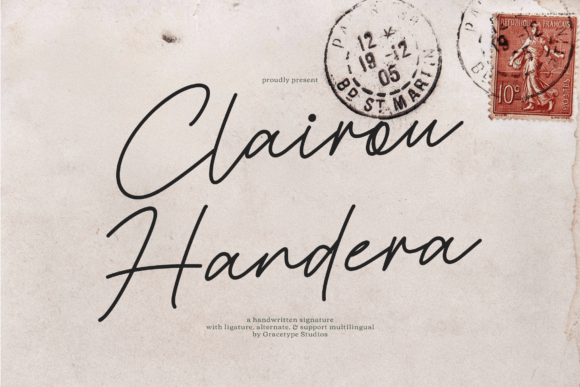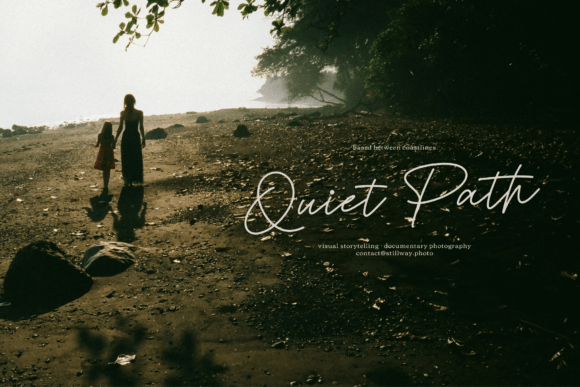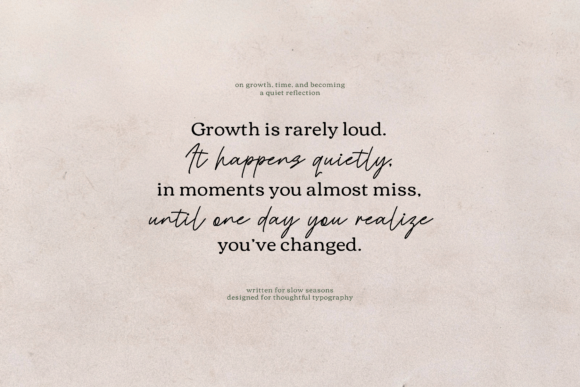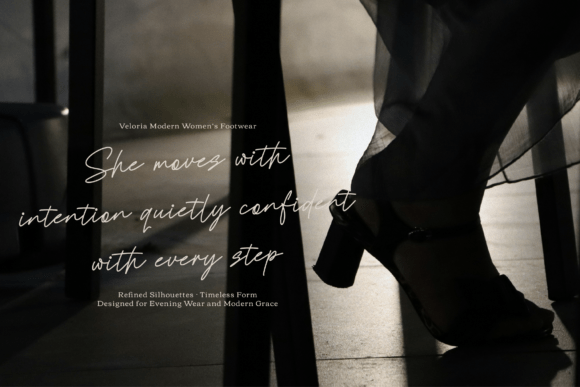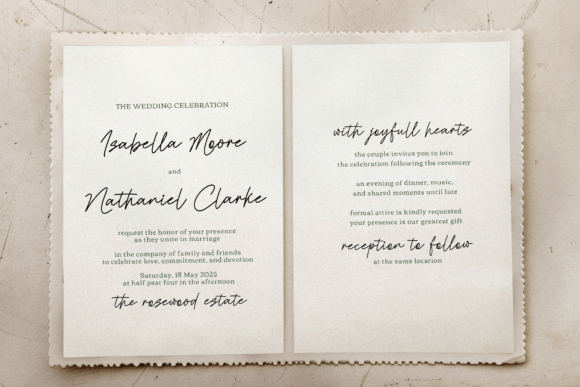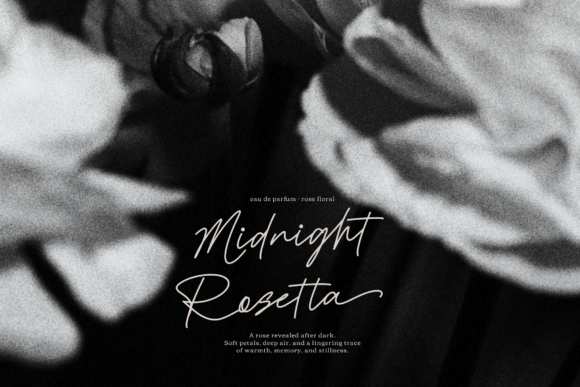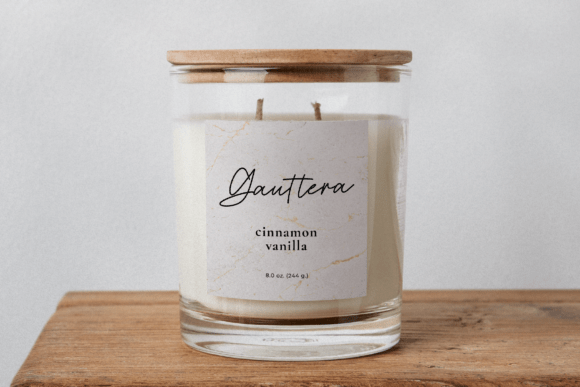
The Perfect Script: Elevate Your Designs with Clairou Handera Font
Have you ever poured your heart into a design project, only to feel like something is missing? Maybe it’s the right touch of elegance, a dash of sophistication, or a pinch of personality. That’s where the Clairou Handera Font comes in – a stunning, high-end script font that’s about to become your new go-to for adding that extra oomph to your designs.
This exquisite font is designed to capture the essence of luxurious, confident handwriting, with genuine-looking pen strokes, elegant ascenders and descenders, and fluid connections that make your text flow like a work of art. Whether you’re creating high-end wedding invitations, photography watermarks, or custom logotypes, the Clairou Handera Font is your premium choice for adding a touch of refined, upscale professionalism to your global design projects.
Key Features of Clairou Handera Font
- Unique Characteristics: Clairou Handera Font features a unique blend of elegance and sophistication, with intricate details and subtle flourishes that evoke a sense of luxury and refinement.
- Language Support: Designed to support multiple languages, including Latin-based alphabets and some Cyrillic and Greek characters.
Clairou Handera Font Review
I recently had the chance to work with the Clairou Handera font, and I must say, it’s been an interesting experience. Overall, I think the font has some great qualities, but it also has some limitations that might make it less suitable for certain projects.
- The Clairou Handera font has a beautiful, elegant feel to it. It’s perfect for creating a sophisticated, high-end look in your designs.
- The font is highly legible, even at small font sizes. This makes it a great choice for body text or smaller headings.
- The font comes in a range of weights and styles, which makes it easy to customize and find the perfect fit for your project.
Limitedations ⚠️
- The Clairou Handera font can feel a bit too ornate for some projects. If you’re looking for a clean, simple font, this might not be the best choice.
- The font can be difficult to read at very large font sizes. If you need to use the font for large headings or titles, you might find it gets a bit too busy.
Overall, I think the Clairou Handera font is a great choice for projects that need a touch of elegance and sophistication. However, it might not be the best fit for every project. Be sure to test it out and see how it works for your specific needs.
Getting the Most Out of Clairou Handera Font
For optimal results, use Clairou Handera Font in headings and titles to create visual hierarchy and emphasis. Experiment with different font sizes and colors to achieve a balanced design. Consider pairing Clairou Handera with other fonts to add variety and interest to your design.
Clairou Handera Font is ideal for creative projects, such as invitations, posters, and social media graphics. It’s also suitable for branding and marketing materials, like business cards and logos. Use it to add a touch of elegance and sophistication to your designs.
Alternatives to Clairou Handera Font
Carolyna Pro is a modern calligraphy font with a touch of elegance and sophistication. It’s perfect for designers who want to add a sense of luxury and refinement to their projects.
Comparison to Clairou Handera Font: Carolyna Pro has a more modern and edgy feel compared to Clairou Handera Font’s classic and vintage look. While Clairou Handera Font is ideal for projects that require a traditional and elegant touch, Carolyna Pro is better suited for projects that need a bold and modern statement.
Great Vibes is a beautiful script font that’s perfect for designers who want to add a touch of whimsy and playfulness to their projects.
Comparison to Clairou Handera Font: Great Vibes has a more fluid and cursive feel compared to Clairou Handera Font’s more structured and elegant look. While Clairou Handera Font is ideal for projects that require a sophisticated and refined touch, Great Vibes is better suited for projects that need a more casual and creative vibe.